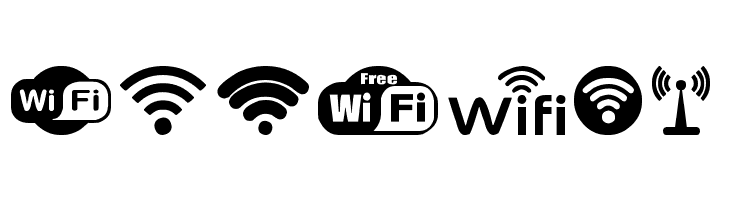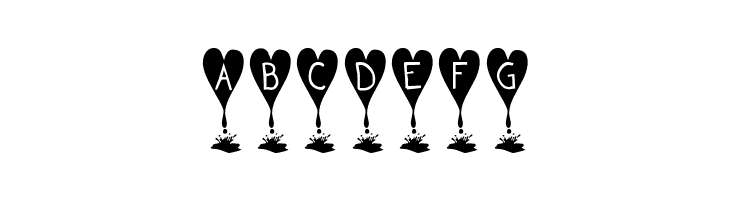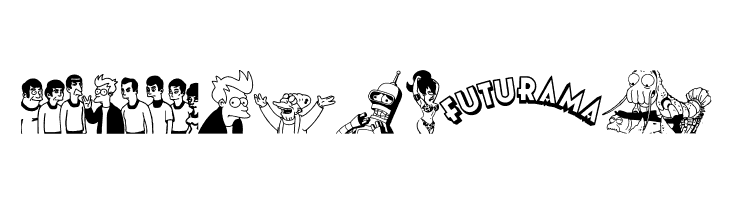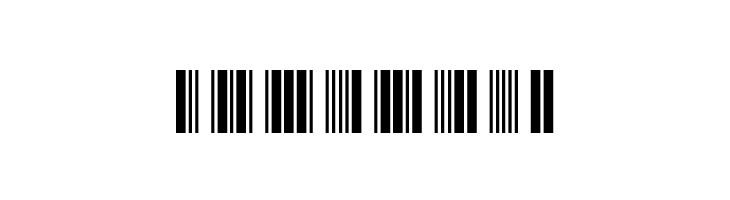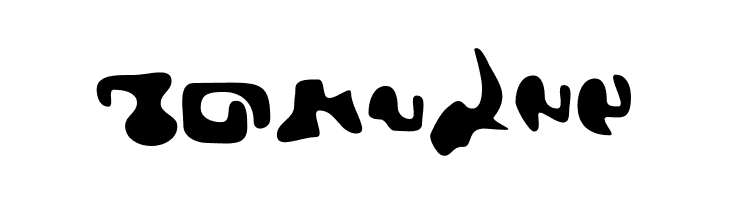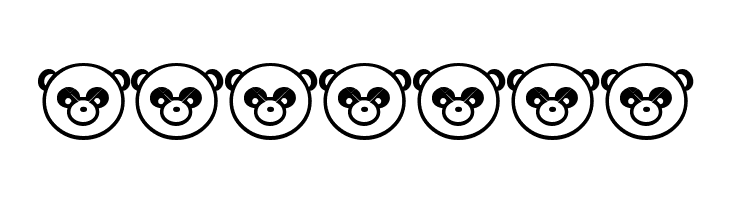
Icon-based decorative font themed around WiFi and wireless signals.
A bold, heart-shaped decorative font with a dripping effect.
A decorative, illustrated font featuring Futurama characters and scenes.
A barcode-style font with vertical line patterns for each character.
An abstract, bold font with fluid, organic shapes.
A decorative, bear-themed pictogram font.
A decorative font featuring unique doll figures for each character.
A whimsical, character-based decorative font with abstract cartoon figures.